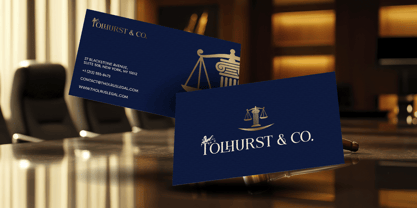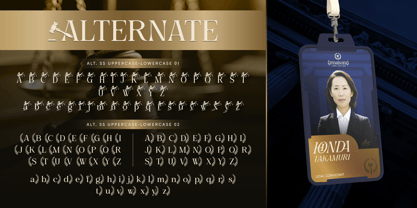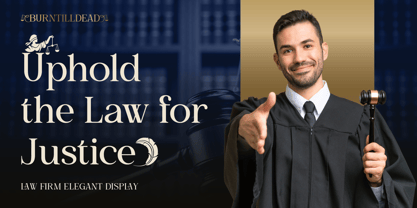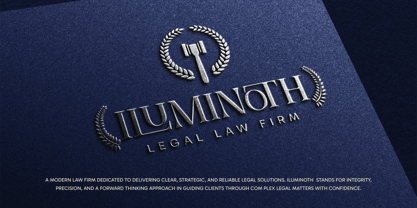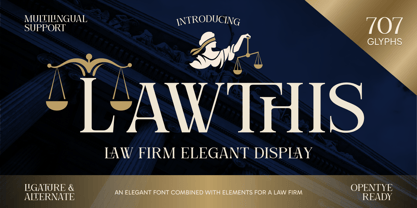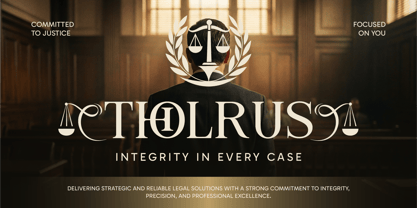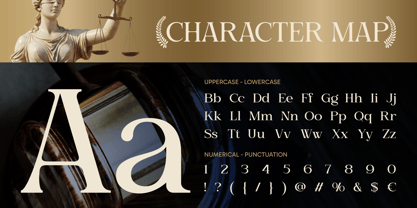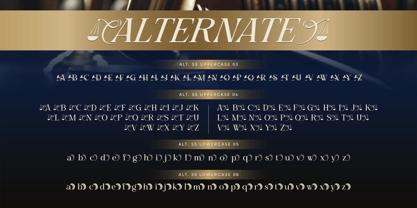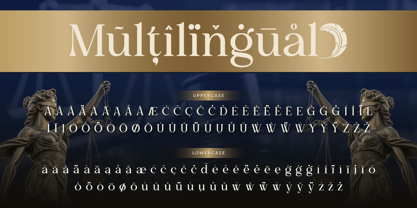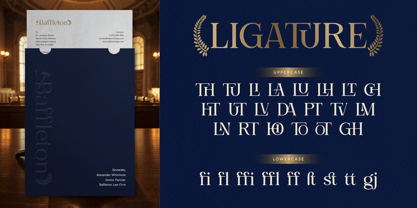
Lawthis
The Lawthis Font Family was designed by Eric Kurniawan and published by Burntilldead. Lawthis contains 2 styles and family package options. More about this family
In a world where trust, authority, and professionalism matter the most, your typography should speak just as confidently as your brand. Lawthis is an elegant serif display font crafted specifically for legal, corporate, and luxury branding. Inspired by the timeless aesthetic of courtrooms, justice symbols, and classic law firm identities, this font delivers a strong and refined presence in every letterform. With its sharp serifs, balanced proportions, and sophisticated alternates, Lawthis is designed to elevate your projects, whether you're building a law firm identity, designing a high-end logo, or creating premium editorial layouts. What makes Lawthis truly stand out is its rich set of ligatures and stylistic alternates, allowing you to create unique and professional typography effortlessly. Every detail is carefully designed to give a sense of precision, integrity, and elegance. Perfect for: Law firm branding, Legal logos & identity, Corporate branding, Editorial & magazine design, Luxury packaging, Business cards & stationery